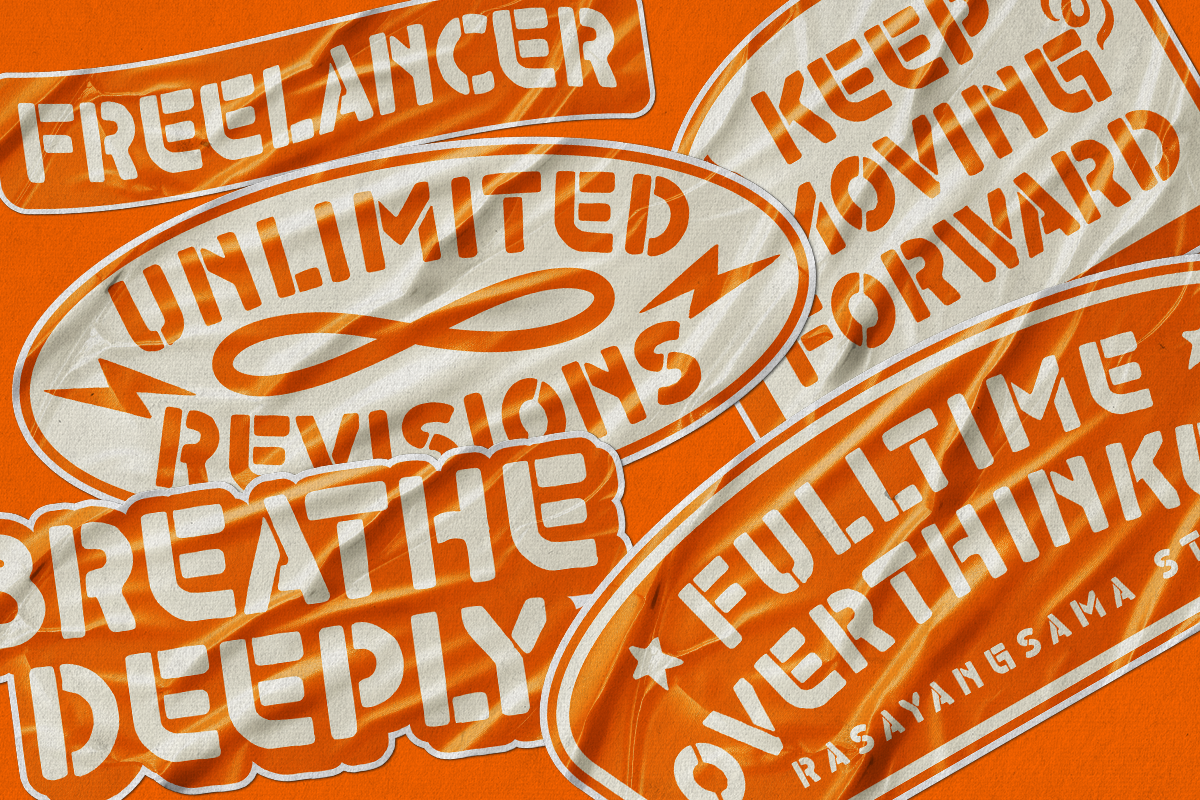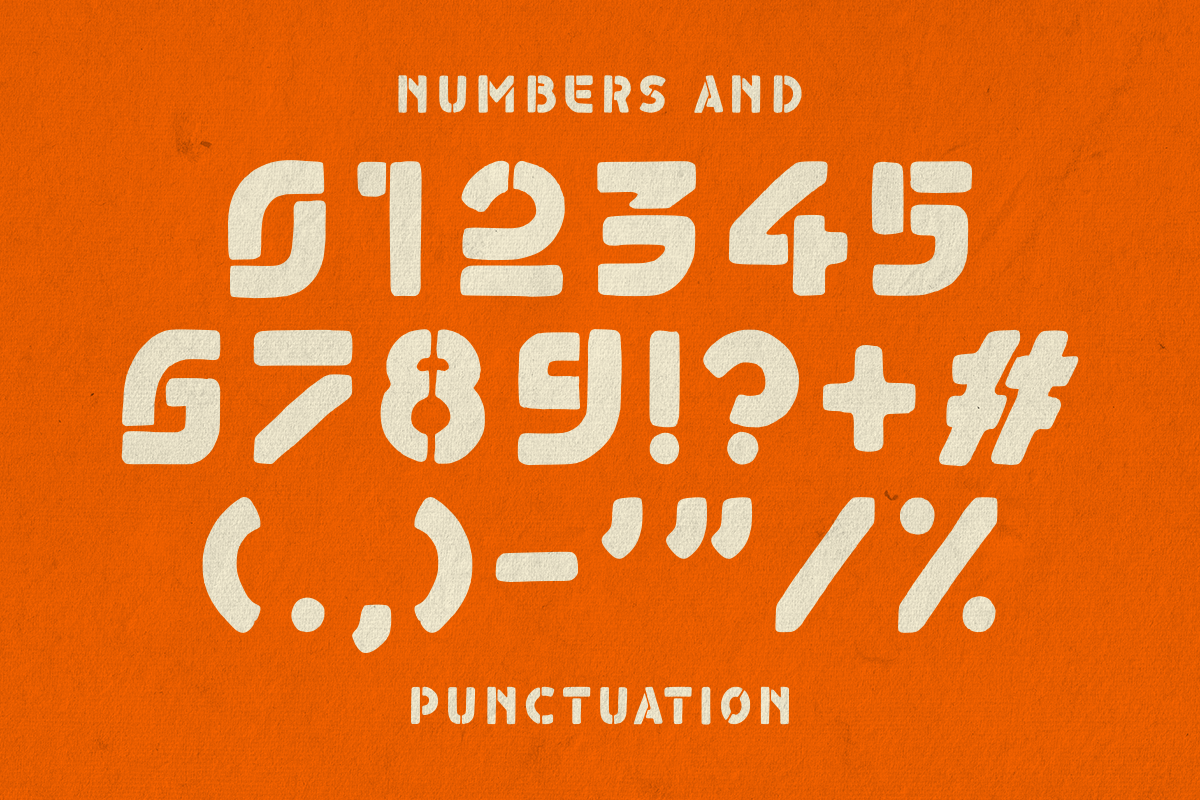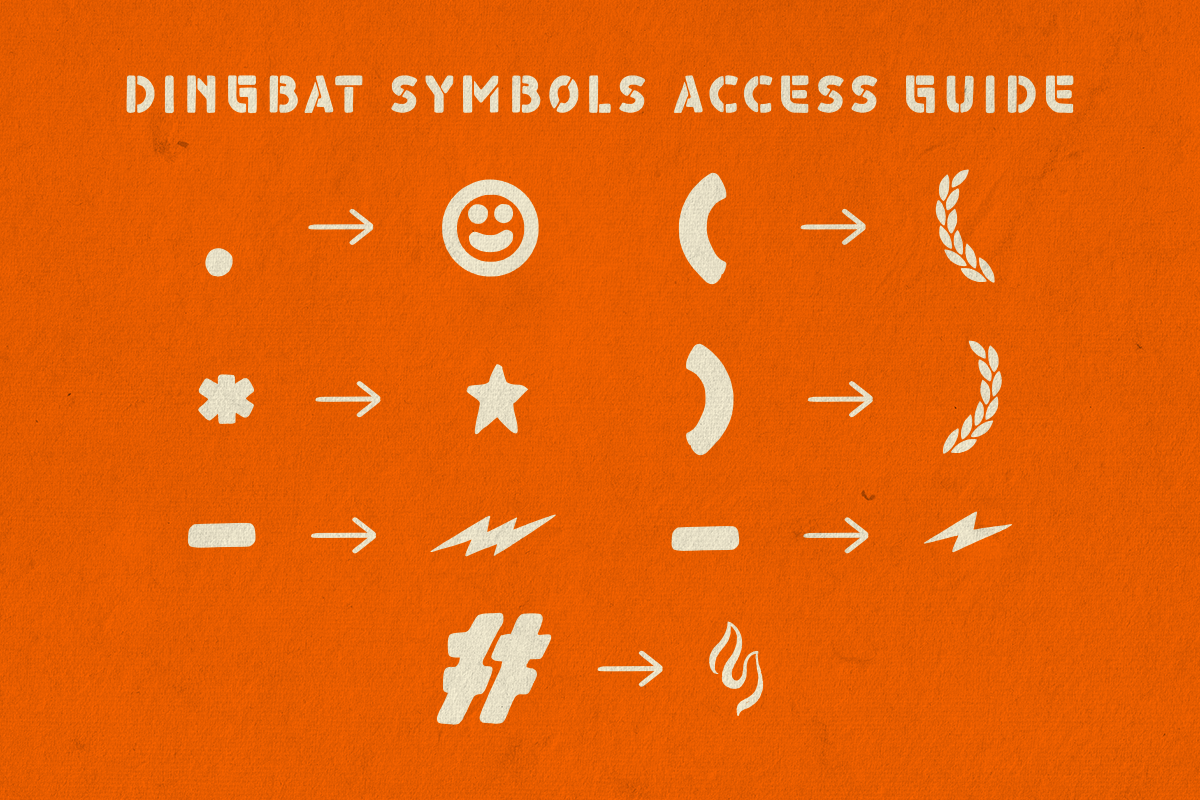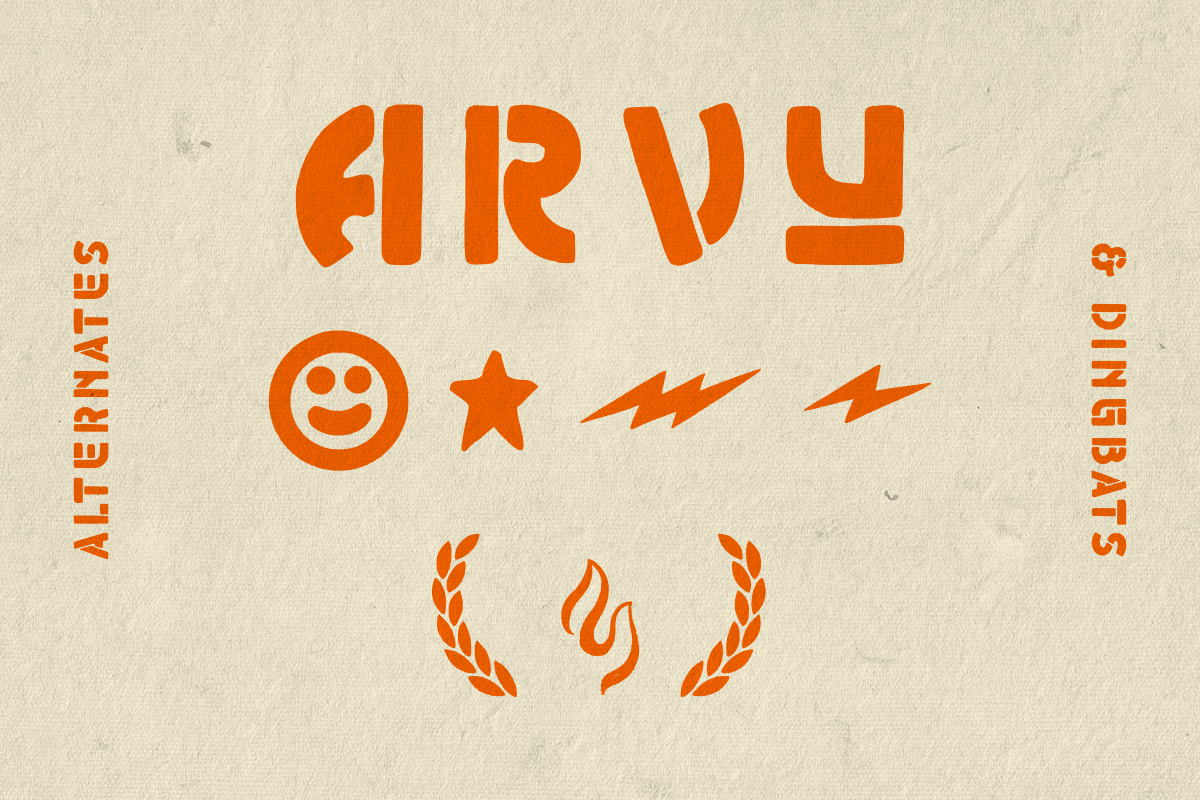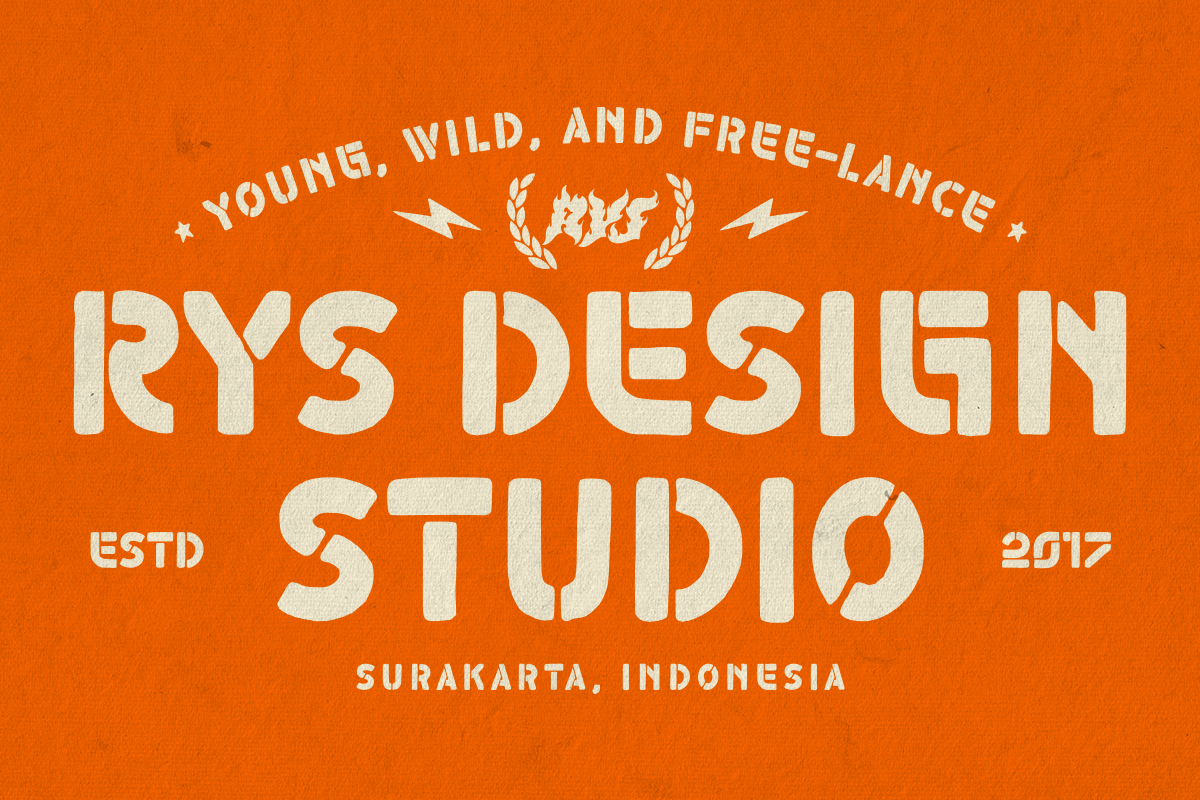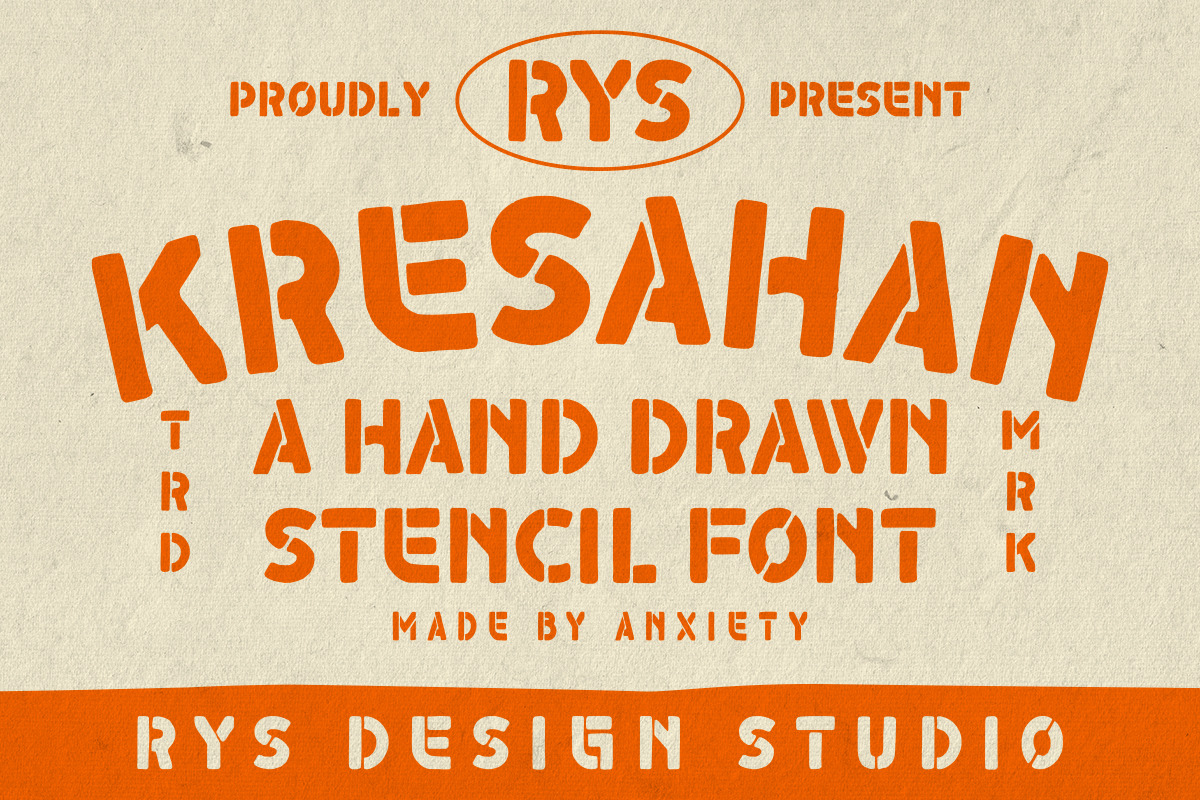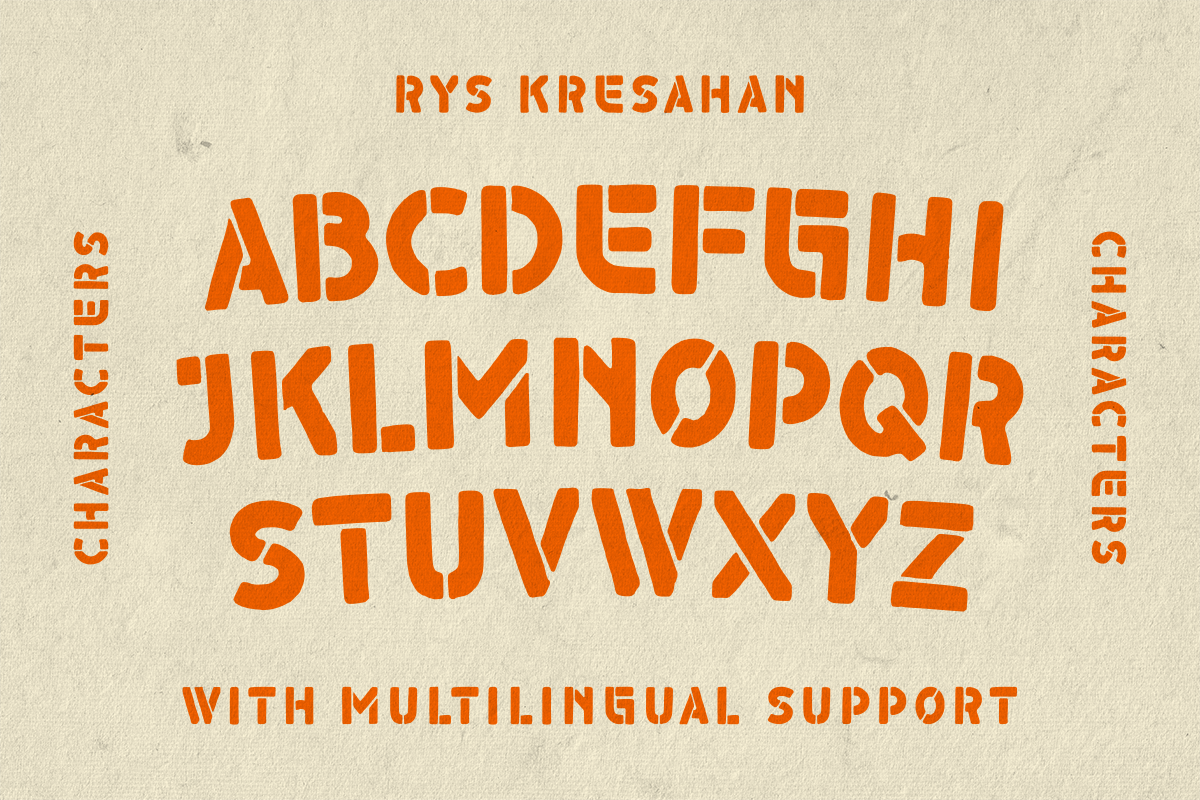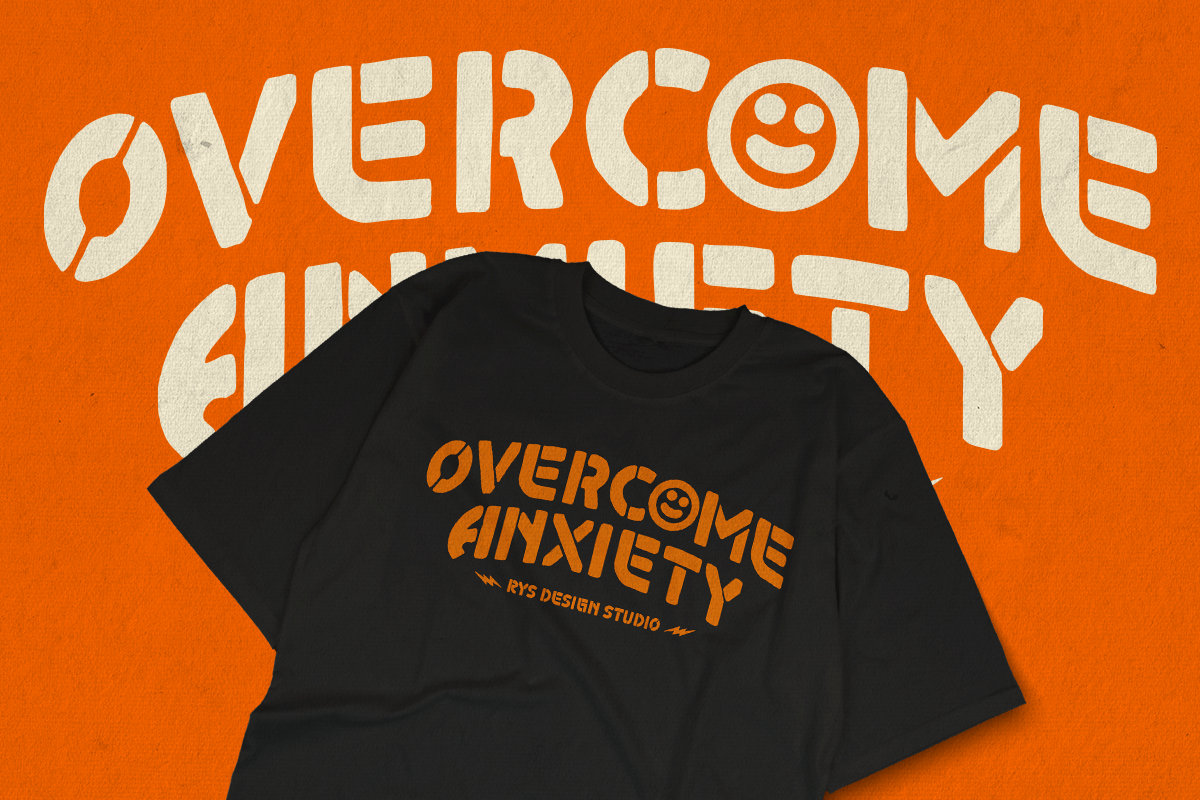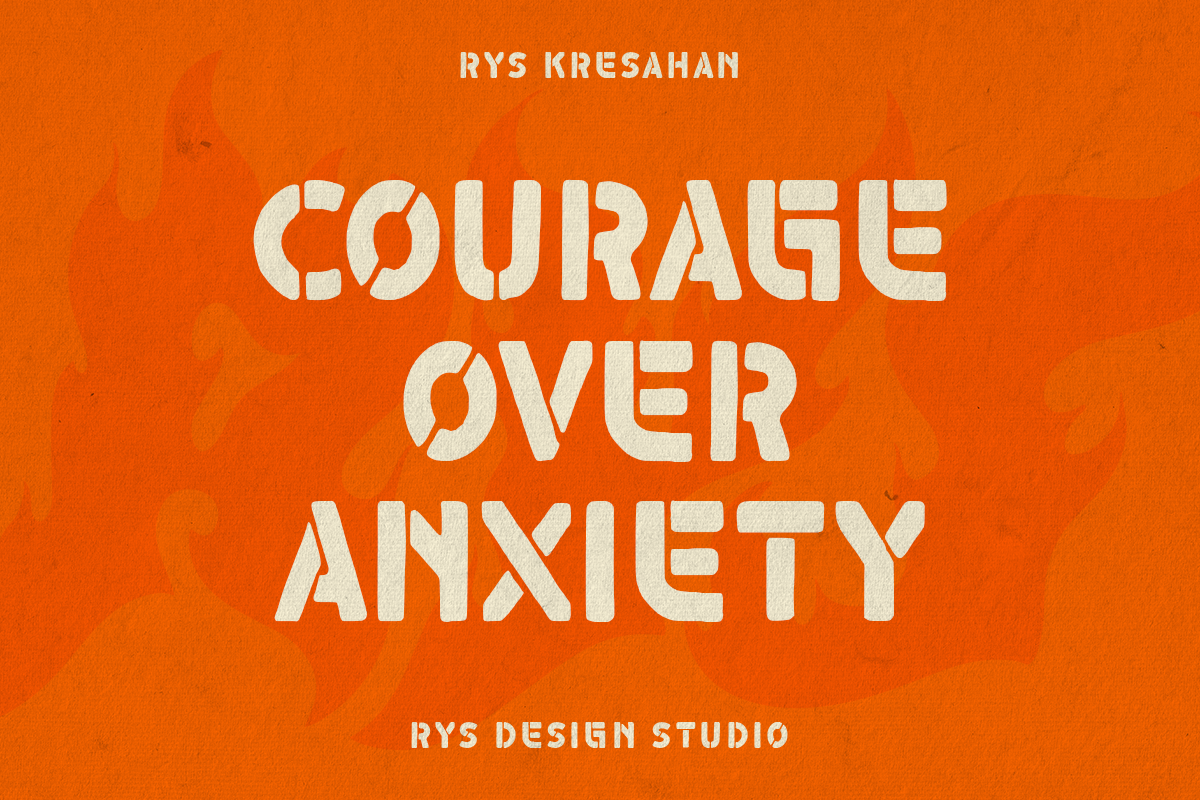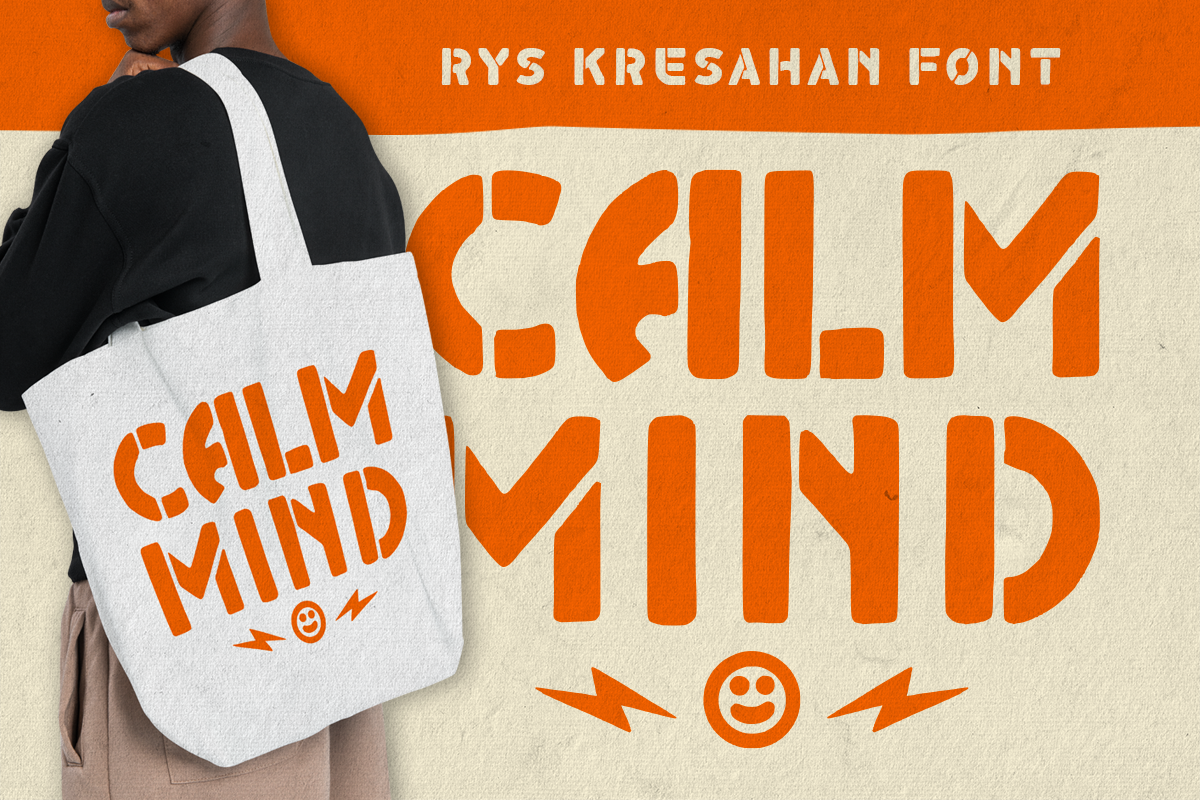
Kresahan - Hand-Drawn Stencil Font
Introducing RYS Kresahan A Handdrawn Stencil Font. It was inspired from vintage typography on street and military. This font is very suitable for application to displays and logos that require an authentic handmade touch, and various other formal forms such as t-shirts, posters, quotes, packaging, merchandising and other printing needs.
- A-Z all caps characters
- Numbers, Symbol, Punctuation
- Alternate & Dingbats
- Multilingual Language Support